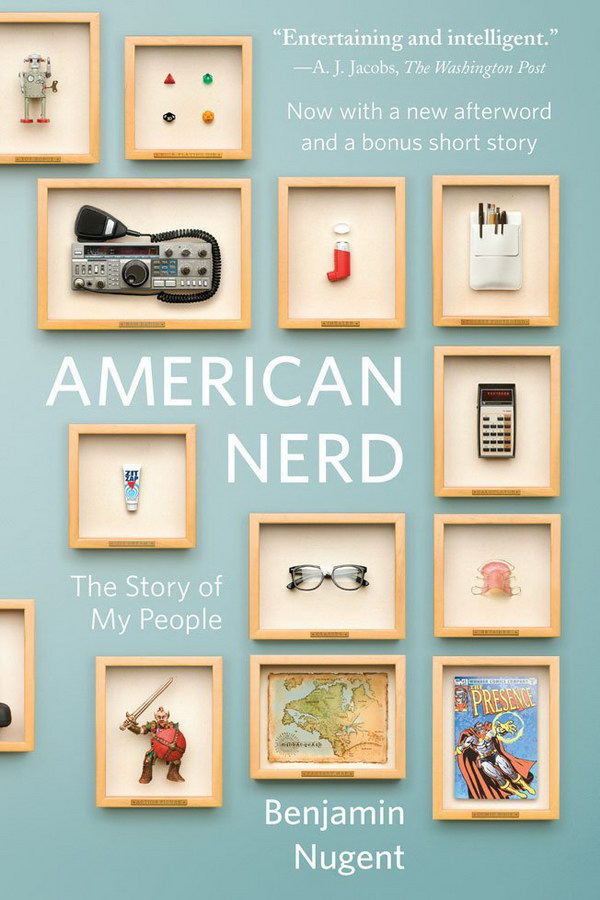
American Nerd Font
BookAmerican Nerd: The Story of My People is a nonfiction book by Benjamin Nugent that explores the history and culture of nerdiness in America, from its origins in the 19th century to the present day.
It is likely that the book title's font is Whitney Medium, created by Tobias Frere-Jones at the request of the Whitney Museum to ensure editorial flexibility while remaining consistent with the museum's signage.